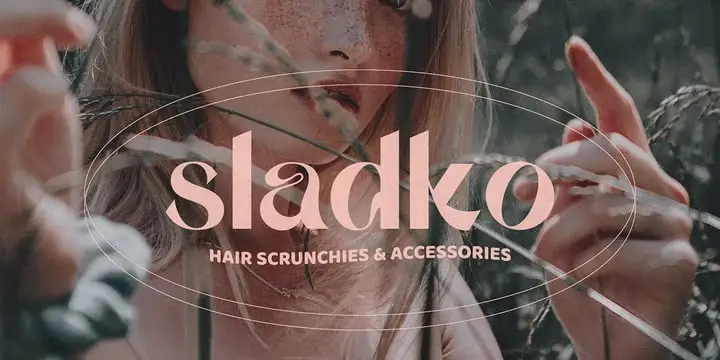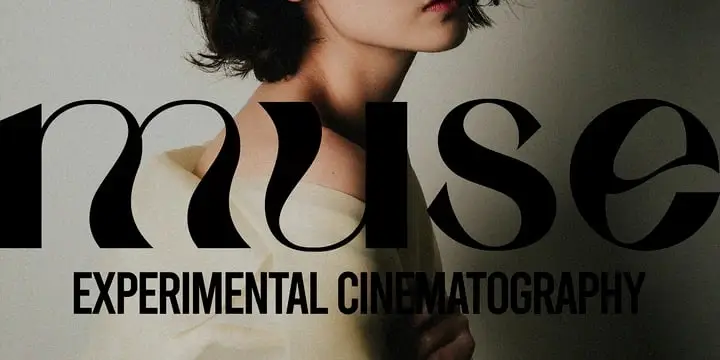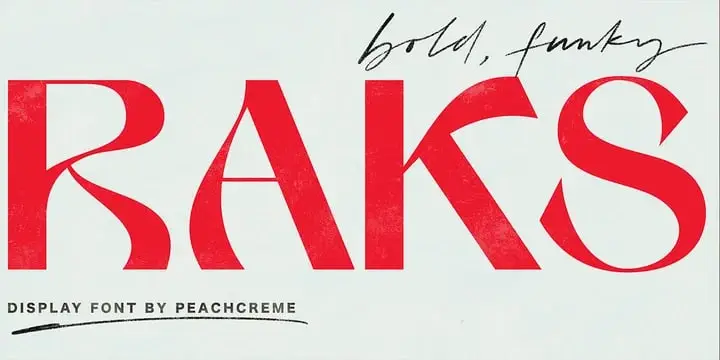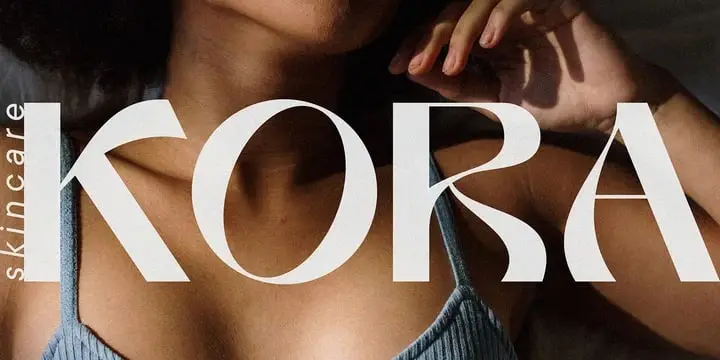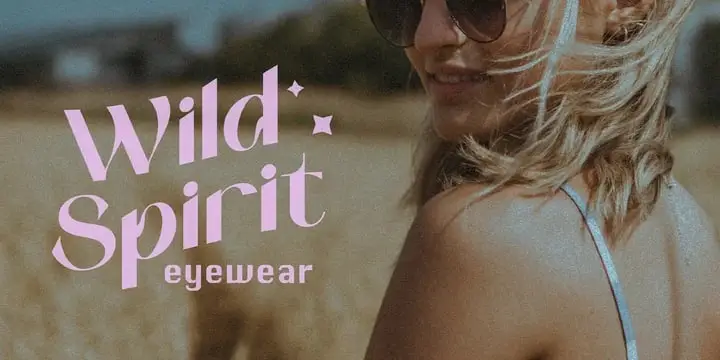
Raks-Modern Display Font
The Raks-Modern Display Font is a captivating typeface designed to make your projects stand out. With its unique blend of modern aesthetics and classic charm, this font is ideal for a variety of applications including branding, logos, web design, print materials, and user interfaces.
• Stylish display font with a contemporary flair
• Multiple weights for versatile design options
• Uppercase and lowercase letters, numerals, and punctuation
• Easy to read at various sizes
• Perfect for headlines, posters, and promotional materials